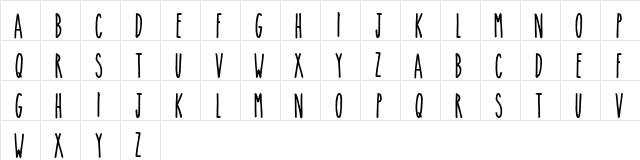
The Skinny Bold
| Designer | Justine Lazo |
Design Context for The Skinny Typeface
The Skinny is a composed and adaptable typeface that performs quietly and consistently across a wide range of design contexts. Its bold stroke weight gives it real presence on the page.
Pro Tip: Pair The Skinny with a font of contrasting weight or personality to build a more expressive typographic hierarchy.